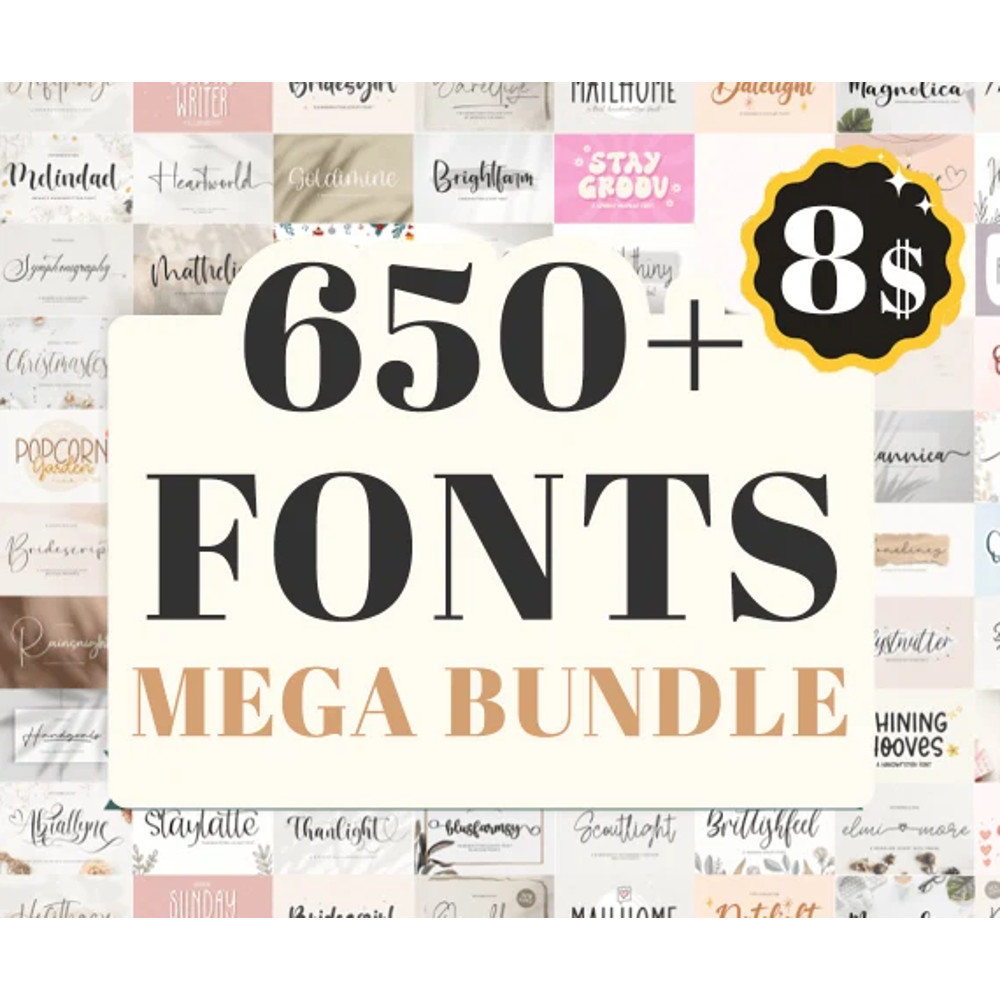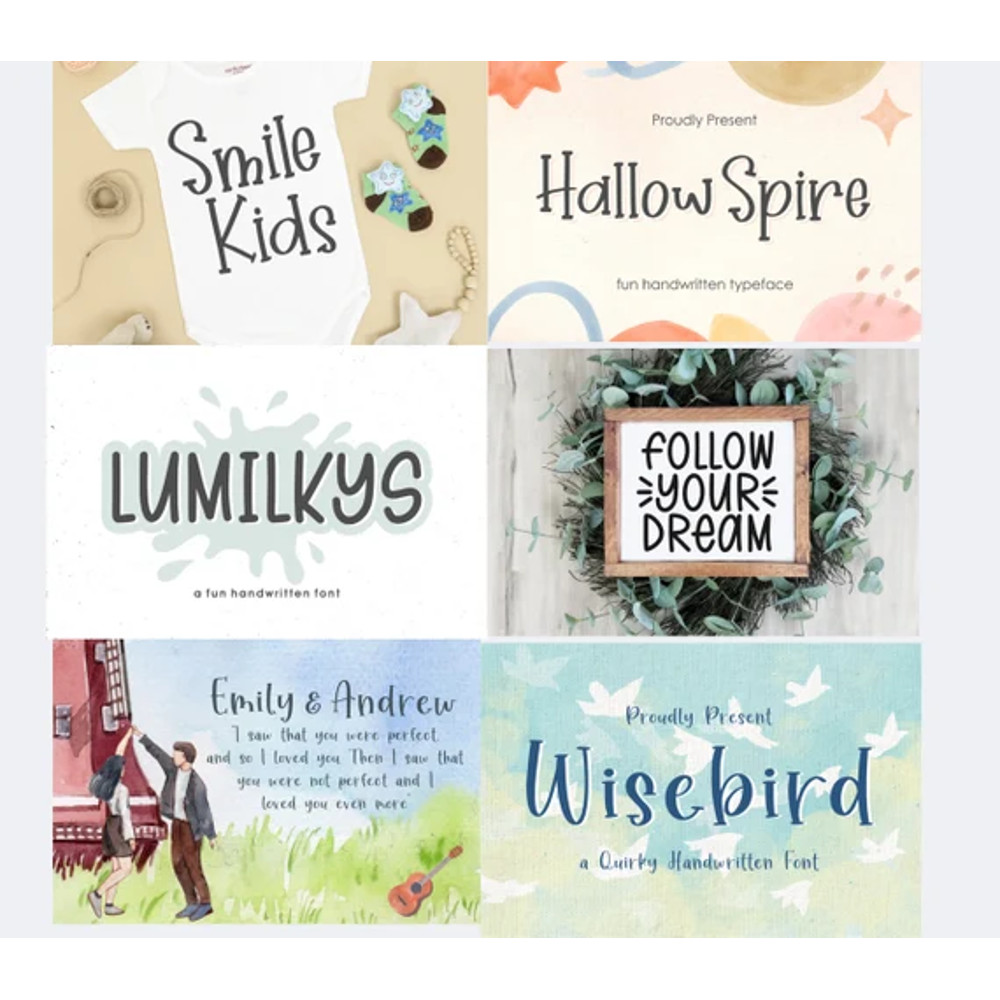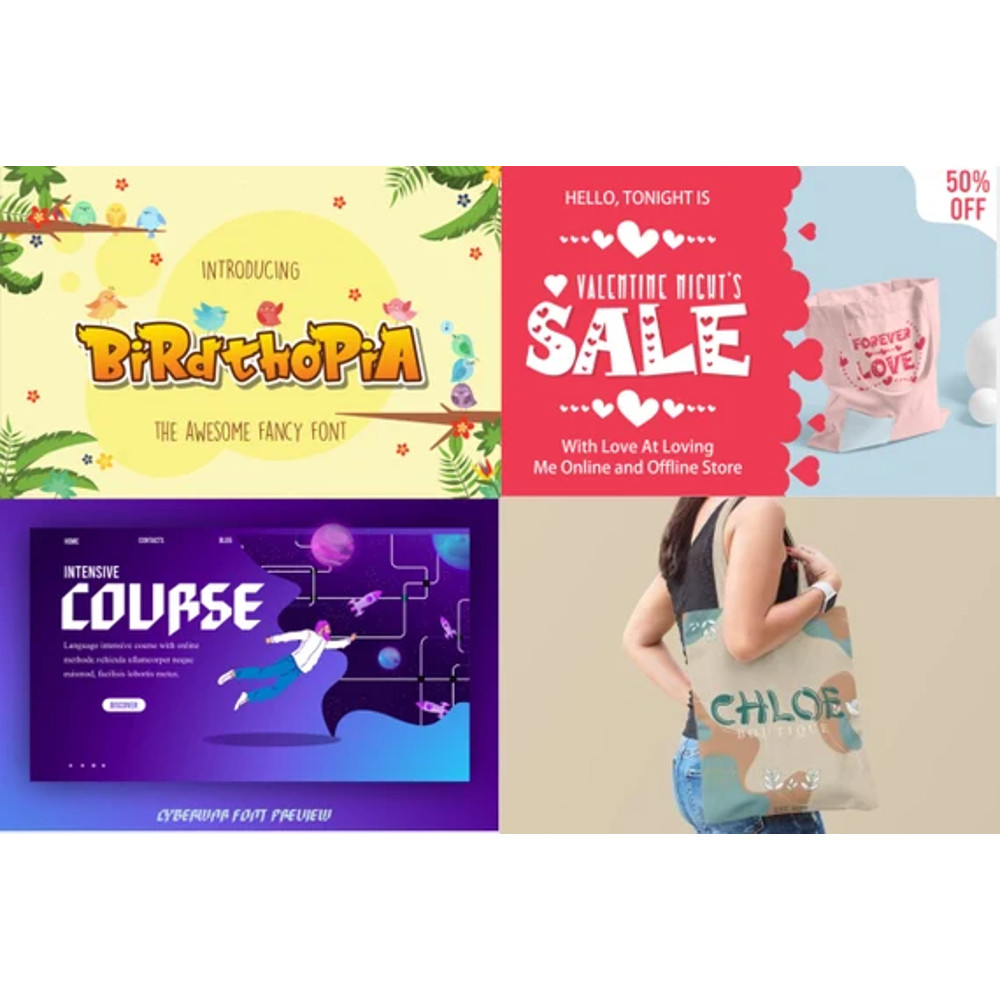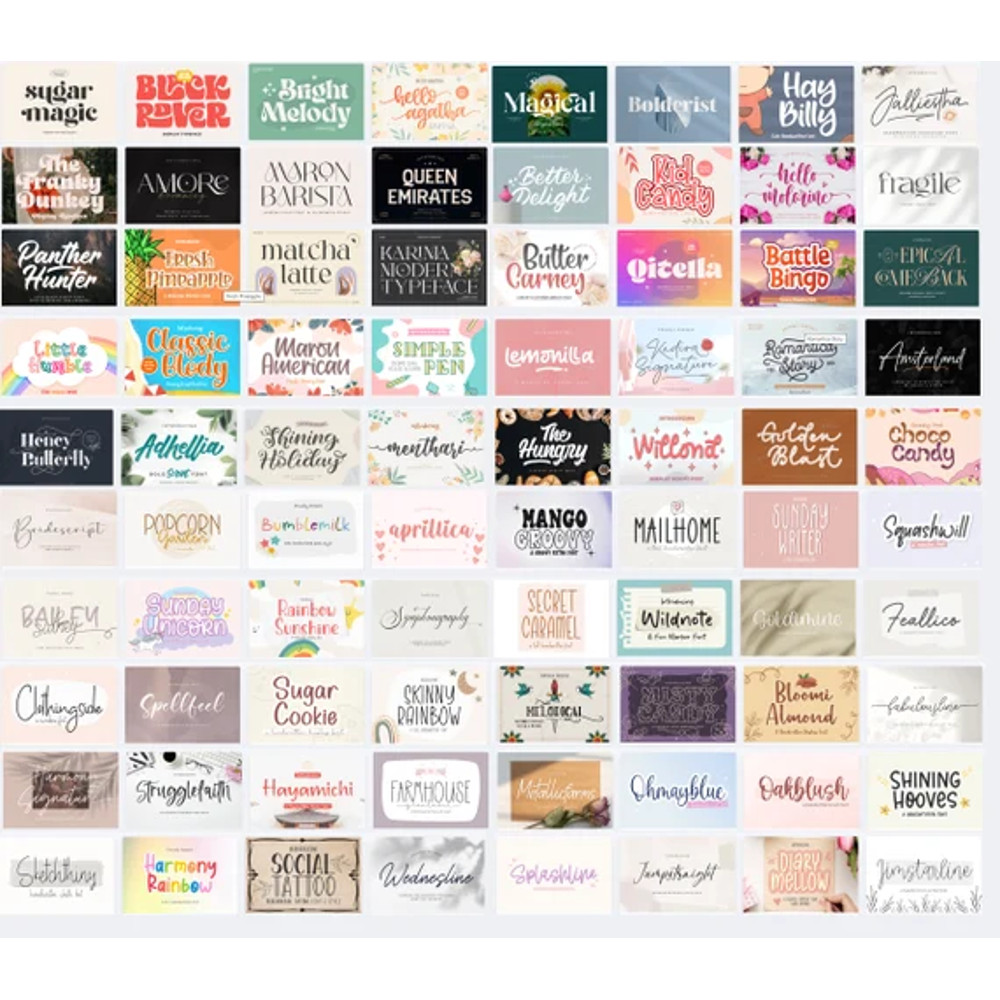
Mega 600 Plus Font Bundle, Handwritten Font, Calligraphy Font, Script Font, Cricut, Procreate, Canva
Mega 600 Plus Font Bundle, Handwritten Font, Calligraphy Font, Script Font, Cricut, Procreate, Canva, Wedding, Commercial Use
Browse through 604 beautiful script, display and decorative fonts and find the perfect ones for your upcoming projects. These fonts are ideal for logos, branding, wedding invitations, pantry labels, business cards, greeting cards, posters, websites, and much more!